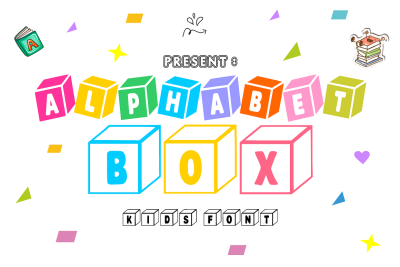
Alphabet Box -Playful Geometric Font
Alphabet Box -Playful Geometric combines clean construction with expressive detail, making it a dependable asset in any type toolkit.